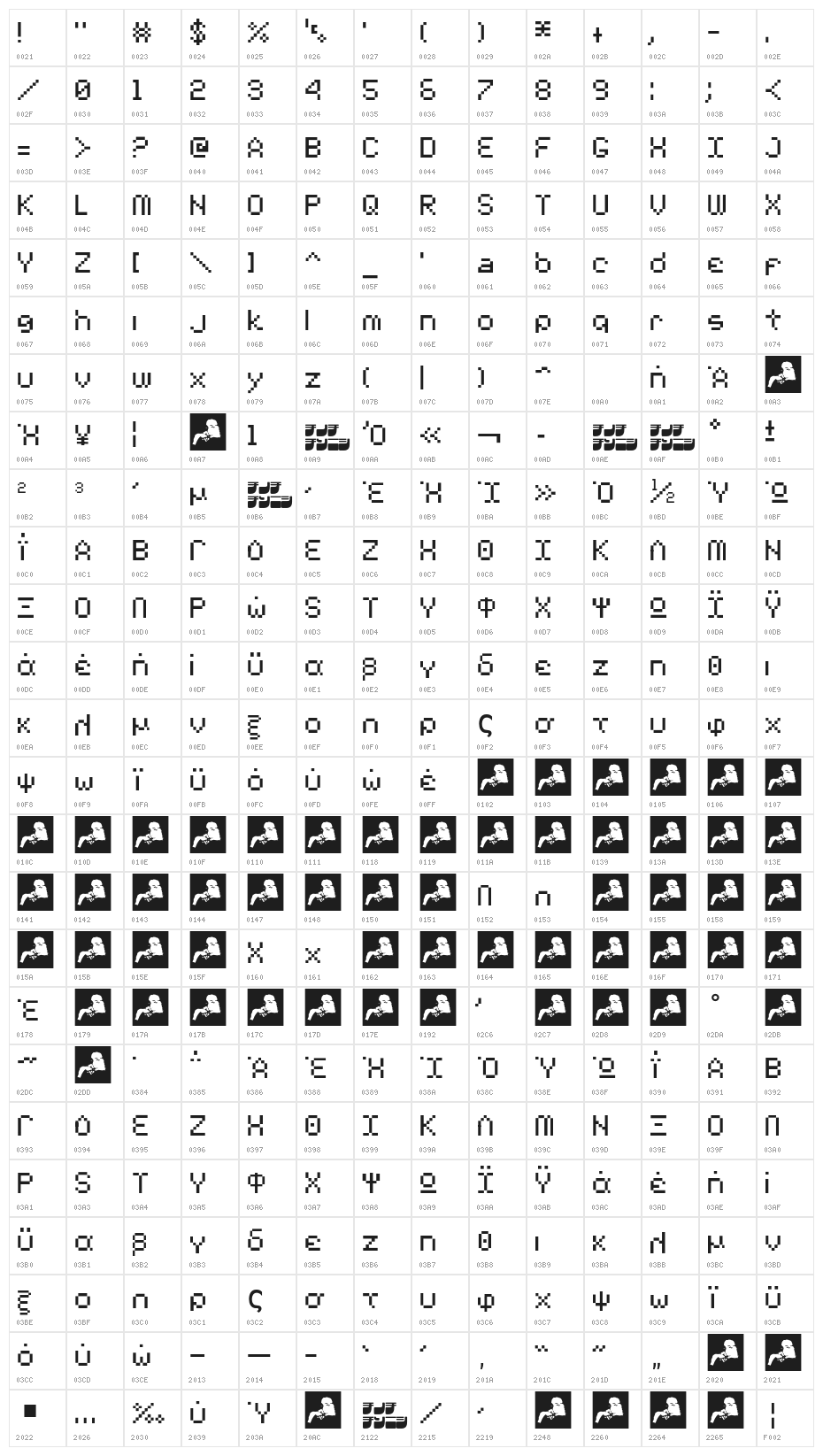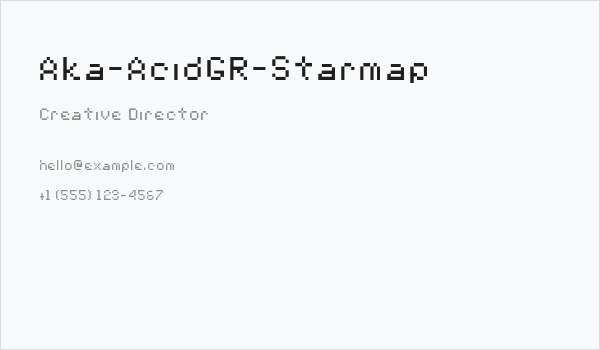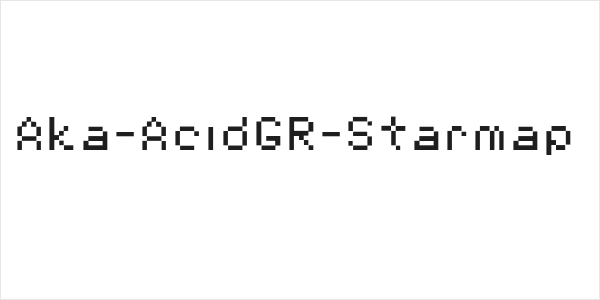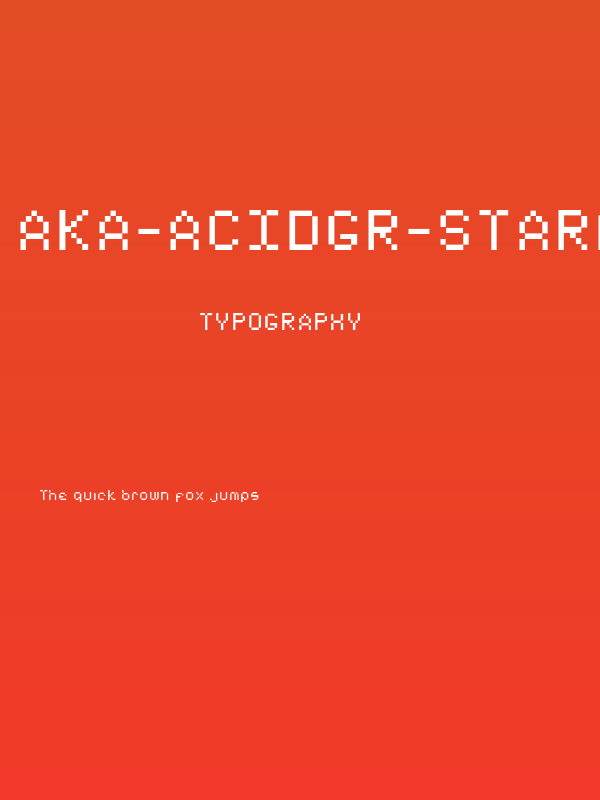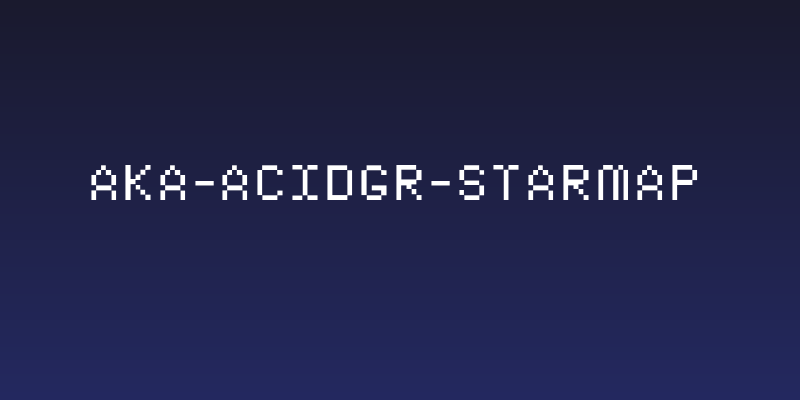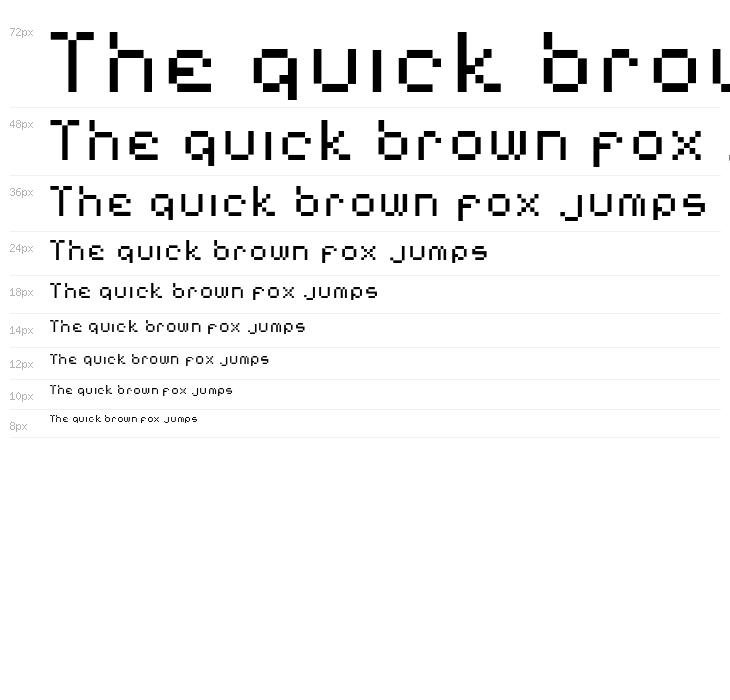
Aka-AcidGR-Starmap Font
Aka-AcidGR-Starmap Description
This font features a pixelated, grid-like design that evokes a retro, digital aesthetic reminiscent of early computer graphics or video games. Each character is constructed with a uniform grid pattern, giving it a blocky and geometric appearance. The uppercase and lowercase letters maintain a consistent height, while the numerals and special characters align seamlessly with the overall style. The font's simplicity and uniformity make it highly legible, even at smaller sizes, while its distinct style adds a touch of nostalgia and modernity. The characters are evenly spaced, ensuring clarity and readability. This font is ideal for projects that aim to capture a vintage digital or futuristic theme.
| Overall Style | Retro, Digital |
| Use Case | Headlines, Logos, Digital interfaces |
| Proposed Projects | Ideal for video game design, digital art, retro-themed posters, and tech-related branding. |